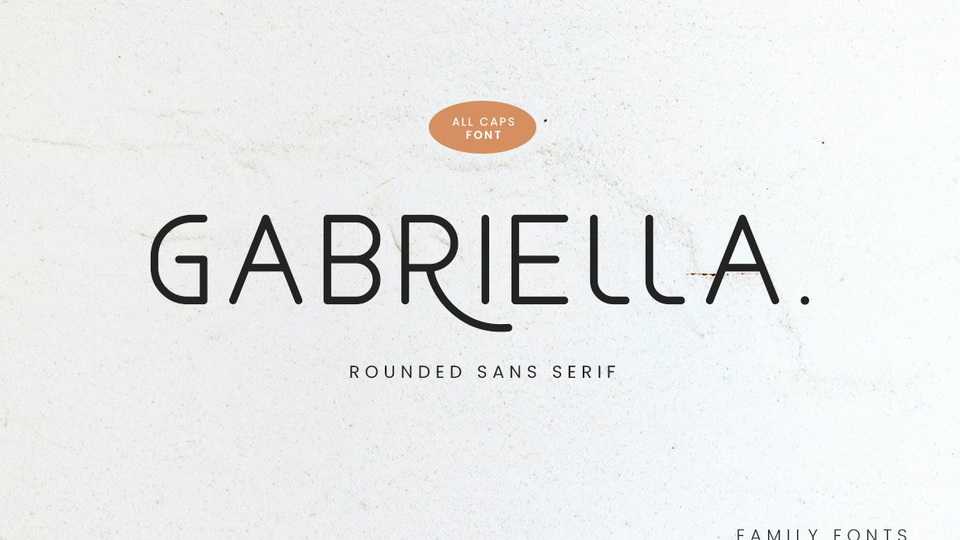
Download Gabriella Sans font, an elegant modern sans serif typeface with stylistic alternates. Its clean and minimalistic look works wonderfully on its own for logos, headlines, posters, packaging and many more.